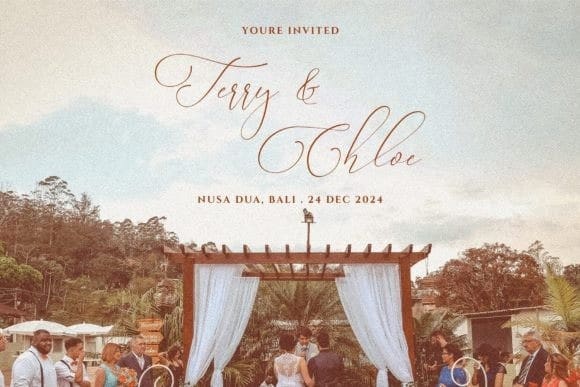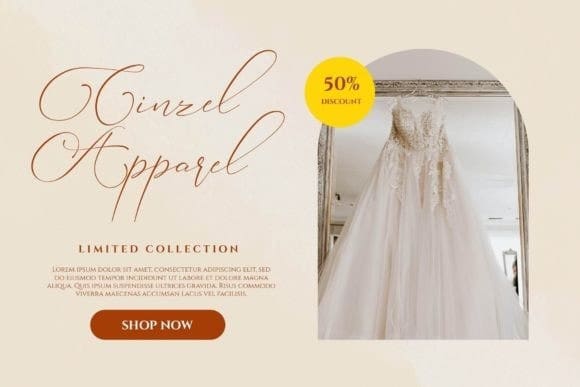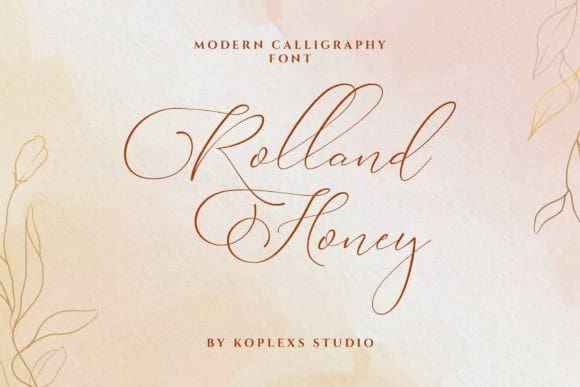
Rolland Honey Font
Rolland Honey Font – Modern Calligraphy Font – where timeless elegance meets a contemporary touch. Elevate your creative projects with this exclusive digital typeface that seamlessly combines classic calligraphy with a modern twist.
Crafted with precision and attention to detail, Rolland Honey exudes luxury and flexibility. Its flowing lines and graceful curves add a touch of elegance to any design, making it perfect for wedding invitations, branding, logos, social media graphics, and more.
Now is the time for you to experience the myriad possibilities with RollandHoney, seamlessly adapting to various applications. Whether you’re designing a romantic wedding package, a stylish logo for your brand, or eye-catching social media posts, this font adds a distinctive charm that captivates and leaves an everlasting impression.
Key Features:
Timeless Elegance: Embrace the beauty of classic calligraphy with a contemporary twist. Rolland Honey strikes the perfect balance between traditional and modern aesthetics.
Versatile Usage: From print to digital, this font effortlessly enhances a variety of projects. Use it on wedding invitations, business cards, websites, and more for a consistently elegant look.
Flawless Craftsmanship: Meticulously designed with attention to detail, each letter and curve reflect a dedication to quality. Your designs will stand out with the refined touch of Rolland Honey.
Expressive Typography: Infuse your text with personality and emotion. The expressive strokes of Rolland Honey bring your words to life, making them visually captivating and engaging.